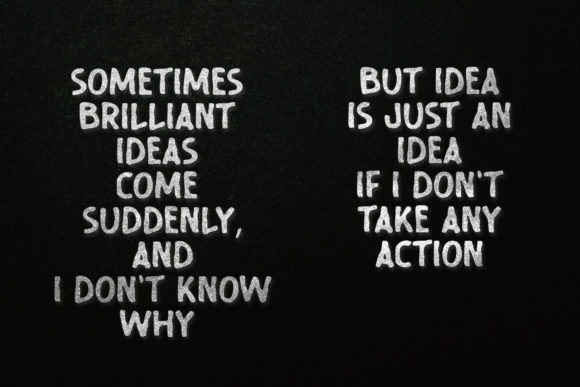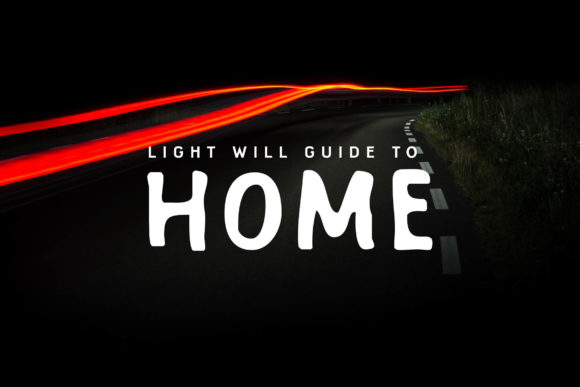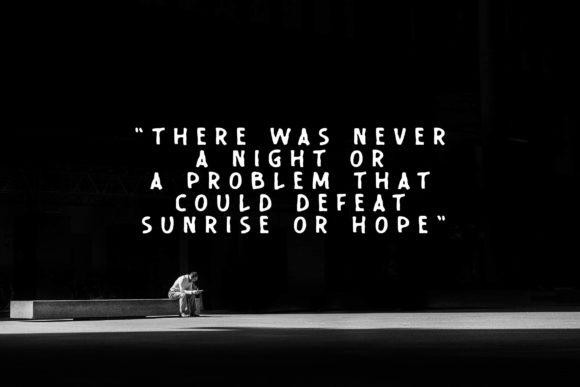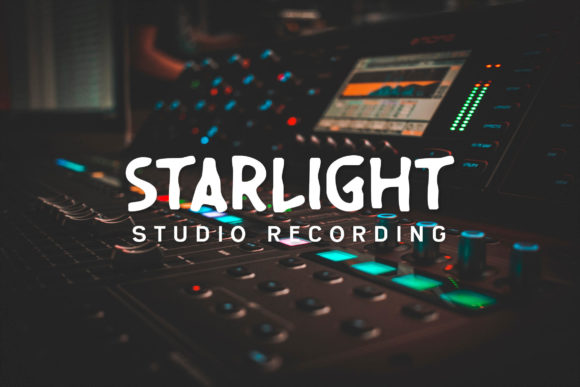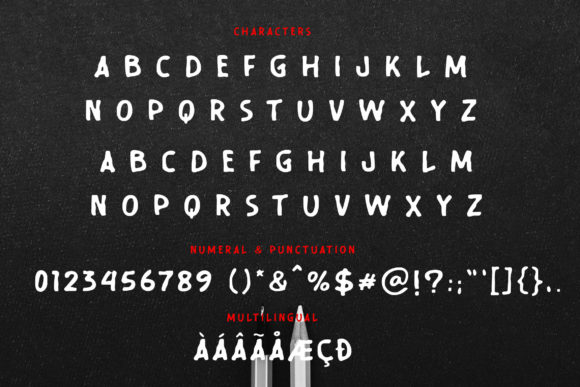
Introduction to Marker Addict Font Font
Fonts play a crucial role in design, and the Marker Addict Font font is a typeface that brings both character and versatility to any project. Whether you’re working on a branding project, a website, or a print design, the Marker Addict Font font offers a unique style that can elevate your work.
Marker Addict is a cool, rough styled and bold display font.
It will look stunning on any poster flyer or print Use this font for your designs and explore its endless possibilities.
Key Features of Marker Addict Font Font
Why Choose Marker Addict Font Font?
The Marker Addict Font font is more than just a typeface – it’s a design tool that helps you communicate your message with style and clarity. Its unique character set and versatile design make it suitable for a wide range of applications, from elegant invitations to bold headlines.
With its carefully crafted letterforms and balanced proportions, the Marker Addict Font font ensures readability and visual appeal across all mediums.
What makes Marker Addict Font font special?
The Marker Addict Font font stands out with its unique design, exceptional readability, and versatility across various design applications.